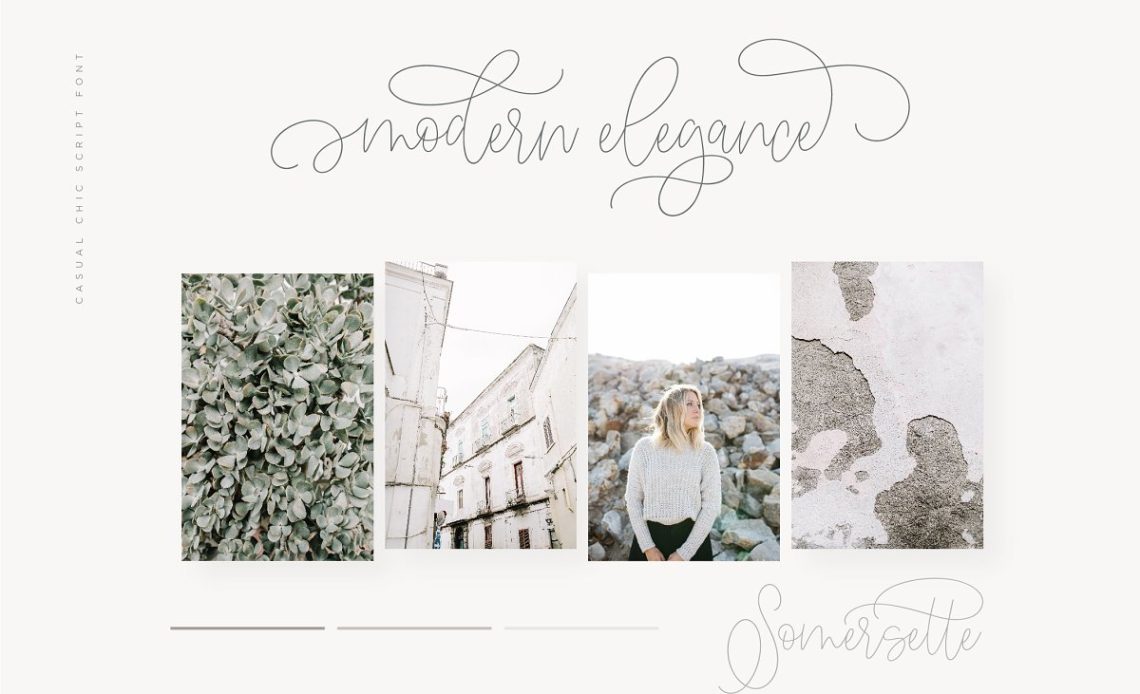
Introducing the Somersette Script Font, the perfect addition to your font collection! Created by the talented Lindsay Catherine, this font is the ideal choice for anyone who wants to add a touch of casual chic calligraphy to their designs. With its elegant and monoline style, Somersette Script Font is perfect for any project, from website design to wedding invitations.
In conclusion, the Somersette Script Font is the best font for any website design or graphic design project. With its elegant and casual chic calligraphy style, it's perfect for adding a touch of sophistication to your designs. Get your hands on this amazing font today and take your designs to the next level!